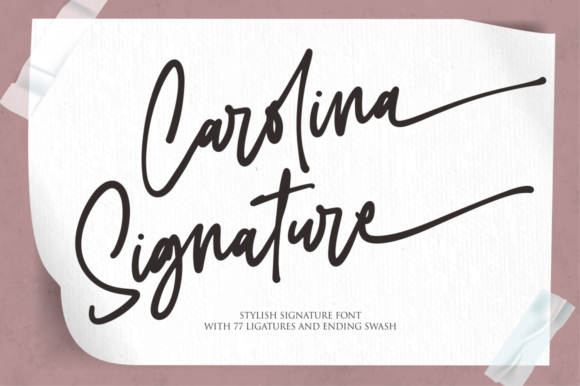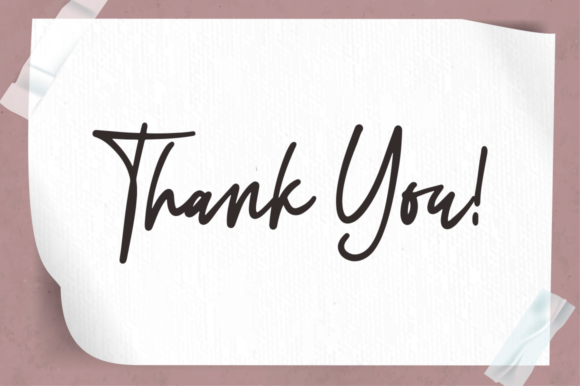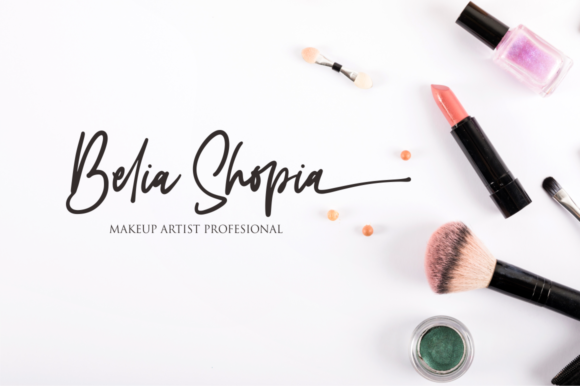
About Carolina Signature Font
Carolina Signature is a lovely and stylish handwritten font, perfectly designed for writing quotes and letters. It looks beautiful on a variety of designs requiring a personalized style, such as wedding invitations, thank you cards, weddings, greeting cards, logos and so on. Carolina Signature is PUA encoded which means you can access all of the glyphs and swashes with ease!